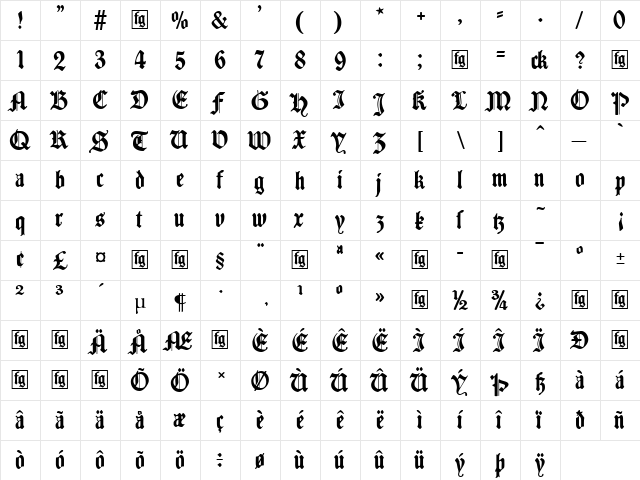
Traditio AH Regular
| Foundry | Fontgrube AH |
| Designer | Andreas Hd |
Design Context for Traditio AH Typeface
Traditio AH is a composed and adaptable typeface that performs quietly and consistently across a wide range of design contexts.